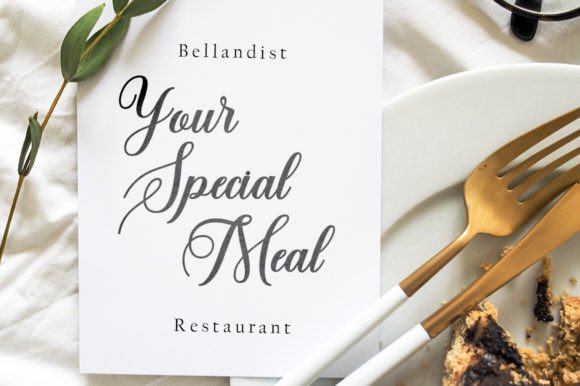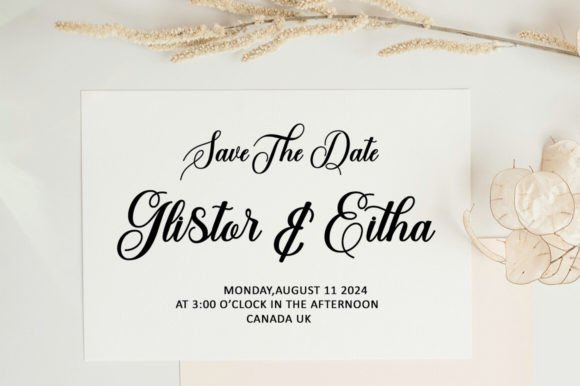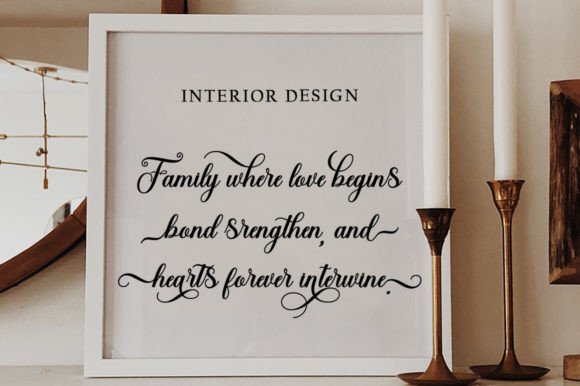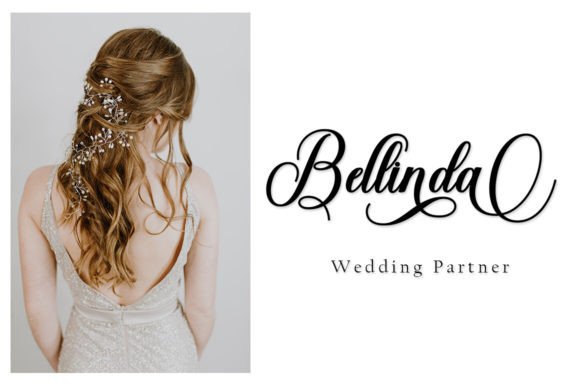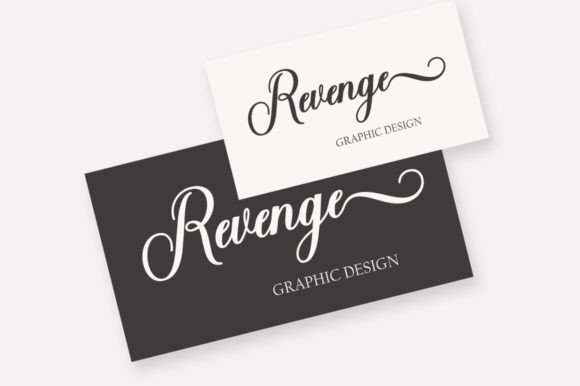
Elevate Your Designs with Beautiful Script Font: A Modern Calligraphy Marvel
In the realm of typography, few fonts manage to capture the essence of elegance and modernity as beautifully as the Beautiful Script font. This stunning handwritten font, with its modern calligraphy feel, has become a go-to choice for designers and crafters looking to add a touch of sophistication to their projects. Whether you’re working on a logo, branding, invitation, or blog, Beautiful Script is the perfect companion to help your designs stand out.
The Charm of Beautiful Script
Beautiful Script boasts a unique charm that sets it apart from other script fonts. Its fluid strokes and graceful curves give it a dynamic, yet refined appearance that’s perfect for a wide range of applications. From modern projects and headings to logos, brandings, and invitations, this versatile font adapts seamlessly to any design need. Its modern calligraphy feel adds a fresh twist to traditional script typography, making it an excellent choice for designers seeking a contemporary look.
Why Choose Beautiful Script?
So, what makes Beautiful Script a preferred choice among designers and crafters? Here are a few compelling reasons:
- Versatility: Beautiful Script is incredibly versatile, making it suitable for various design projects. Whether you’re creating a logo, crafting an invitation, or designing a blog, this font fits right in.
- Elegance: The font’s modern calligraphy feel brings an air of elegance to any design. Its sophisticated look is perfect for projects that require a touch of refinement.
- Readability: Despite its script nature, Beautiful Script maintains excellent readability, ensuring that your message is conveyed clearly and effectively.
- Uniqueness: In a sea of generic fonts, Beautiful Script stands out with its unique character. It adds a distinctive touch to your designs, setting them apart from the crowd.
Applications of Beautiful Script
The applications of Beautiful Script are vast and varied. Here are some popular ways designers and crafters are using this beautiful font:
- Logos and Branding: Create a lasting impression with a logo that exudes elegance and professionalism. Beautiful Script is perfect for crafting memorable brand identities.
- Invitations: Whether it’s a wedding invitation, birthday party invite, or corporate event, Beautiful Script adds a touch of class and sophistication.
- Blogs and Websites: Enhance your blog or website’s aesthetic appeal with Beautiful Script. Use it for headings, titles, or even the entire content to create a cohesive and stylish look.
- Headings and Titles: Add a touch of elegance to your headings and titles. Beautiful Script is perfect for creating visually appealing text that captures attention.
Tips for Using Beautiful Script
To make the most of Beautiful Script, consider the following tips:
- Pair it with Simplicity: Beautiful Script shines when paired with simple, clean fonts. This contrast enhances its elegance and ensures your design doesn’t become too overwhelming.
- Use it Sparingly: While Beautiful Script is stunning, using it sparingly can have a greater impact. Apply it to key elements like headings or logos for maximum effect.
- Experiment with Colors: Don’t be afraid to experiment with different colors. Beautiful Script looks great in bold colors and can add a vibrant touch to your designs.
Beautiful Script is more than just a font; it’s a design statement. Its modern calligraphy feel, elegance, and versatility make it an invaluable asset for designers and crafters. Whether you’re looking to create a stunning logo, a beautiful invitation, or a captivating blog, Beautiful Script is your perfect companion. Elevate your designs with this gorgeous font and leave a lasting impression on your audience.